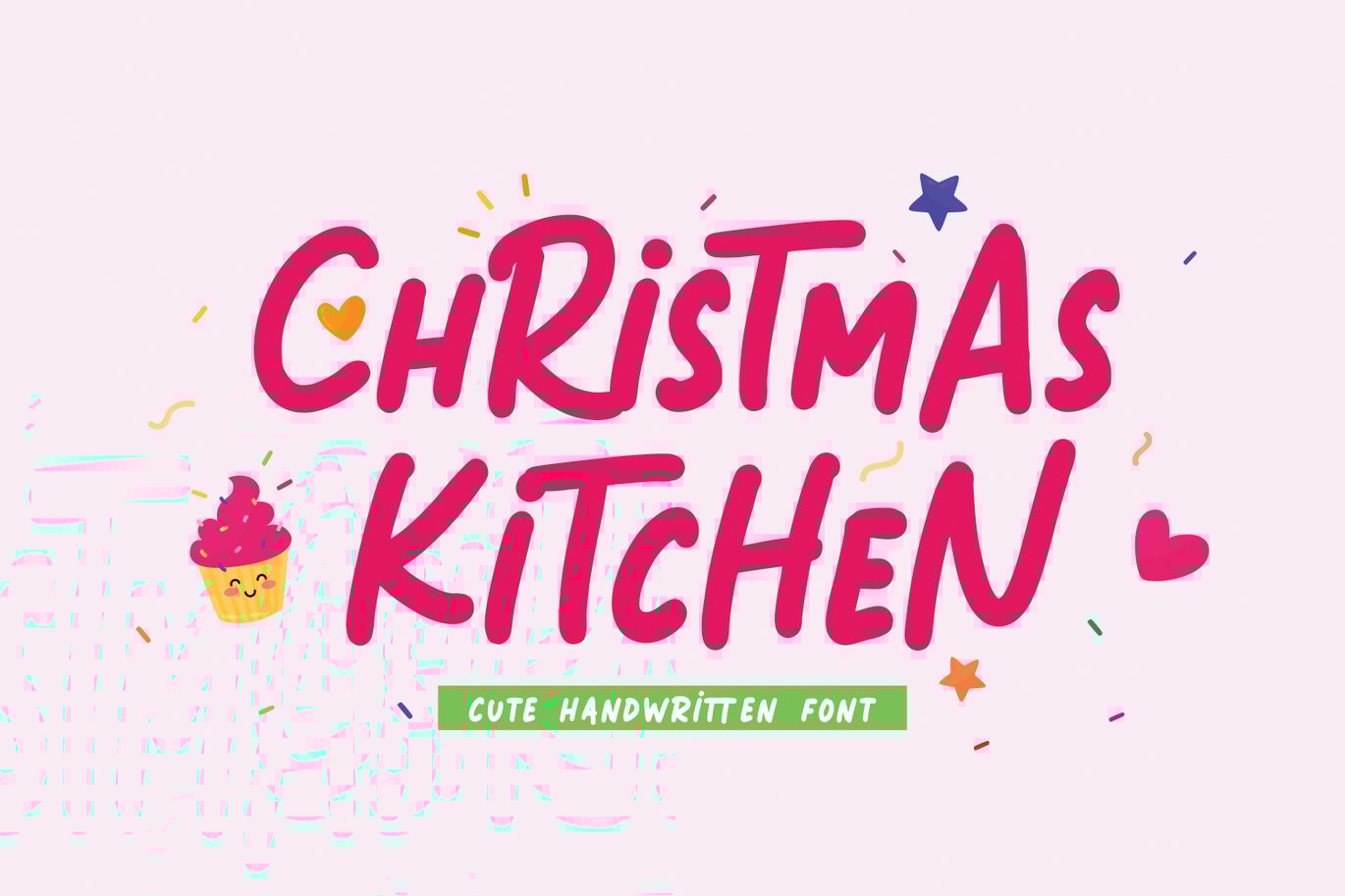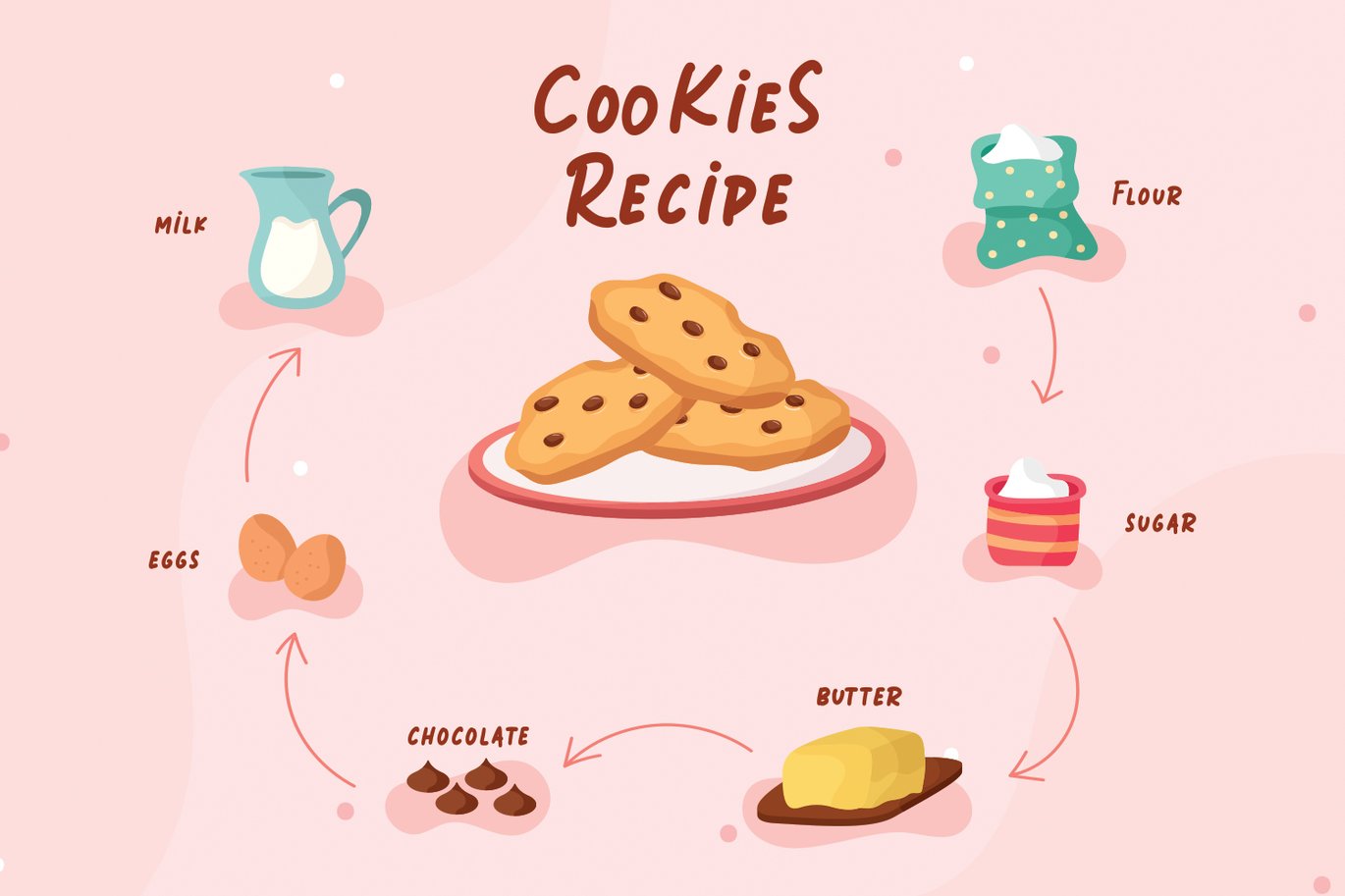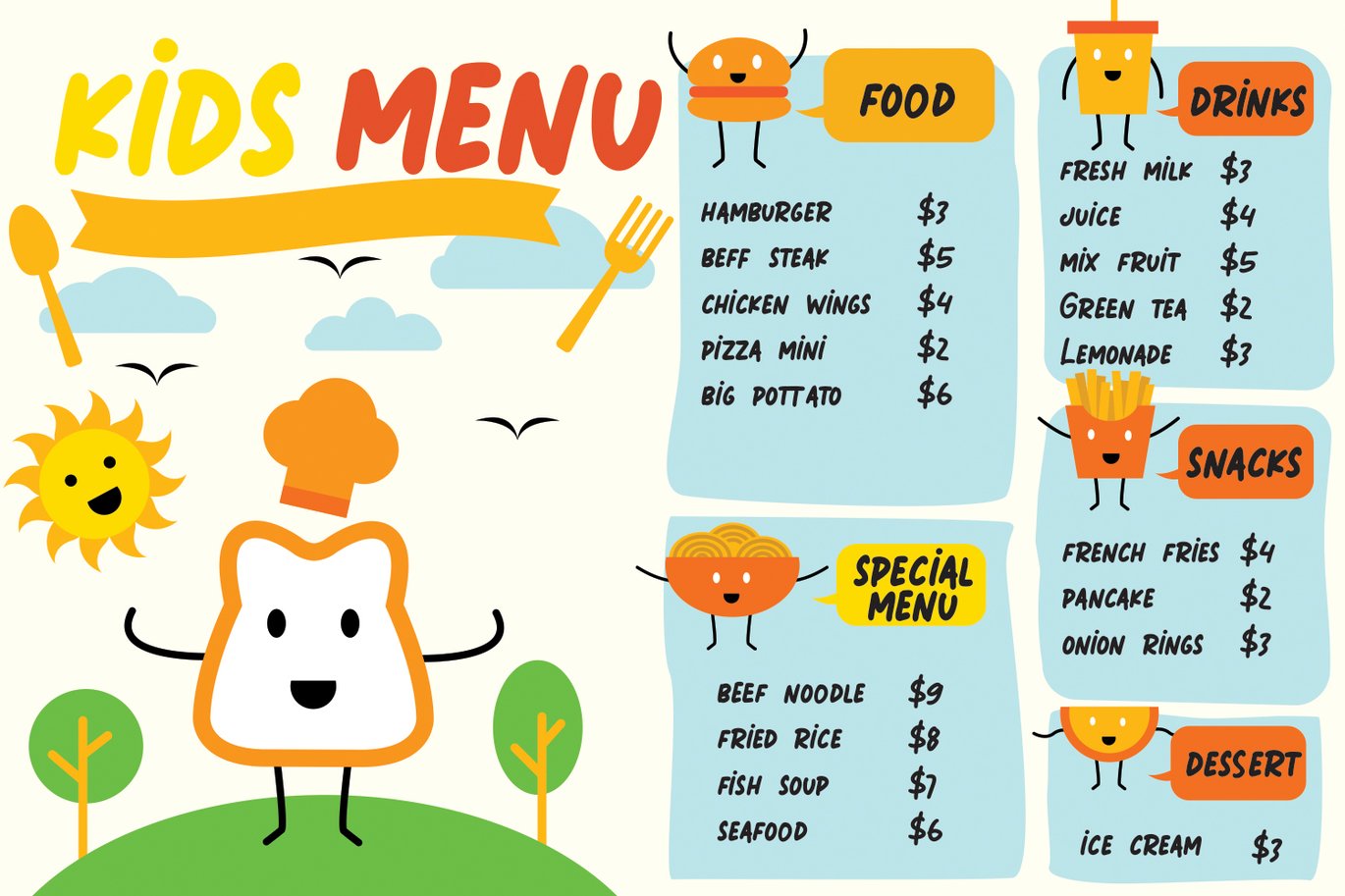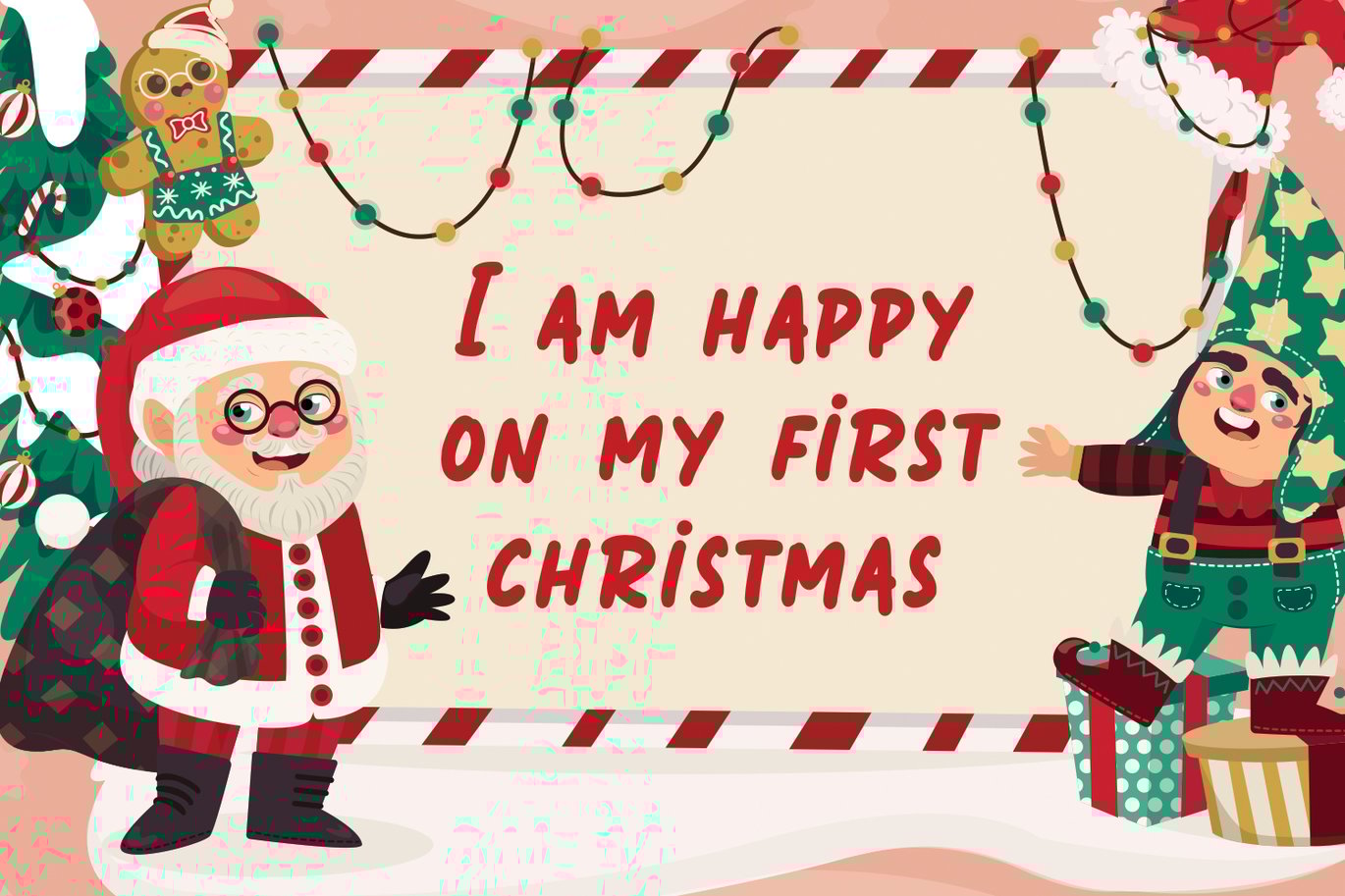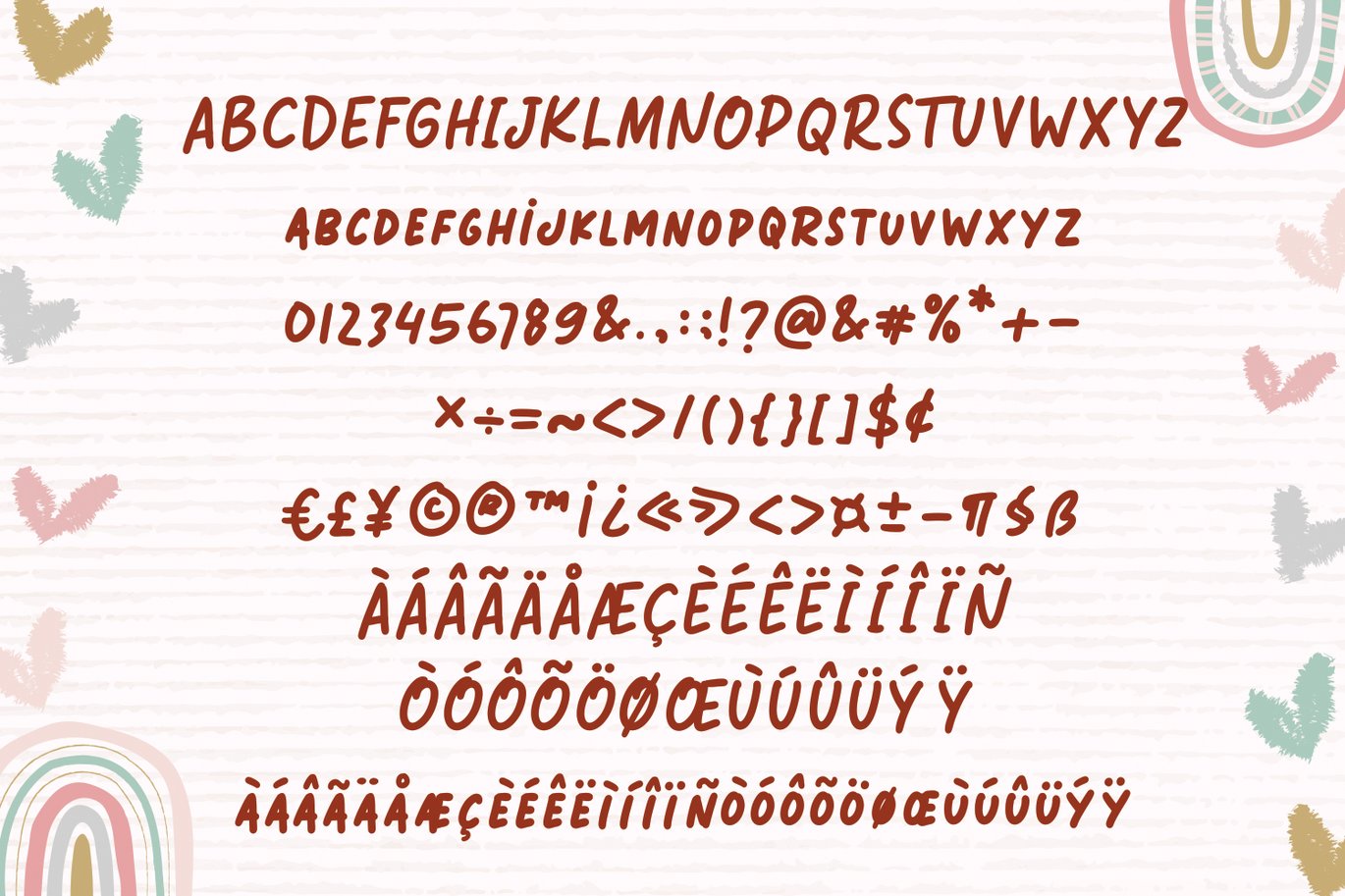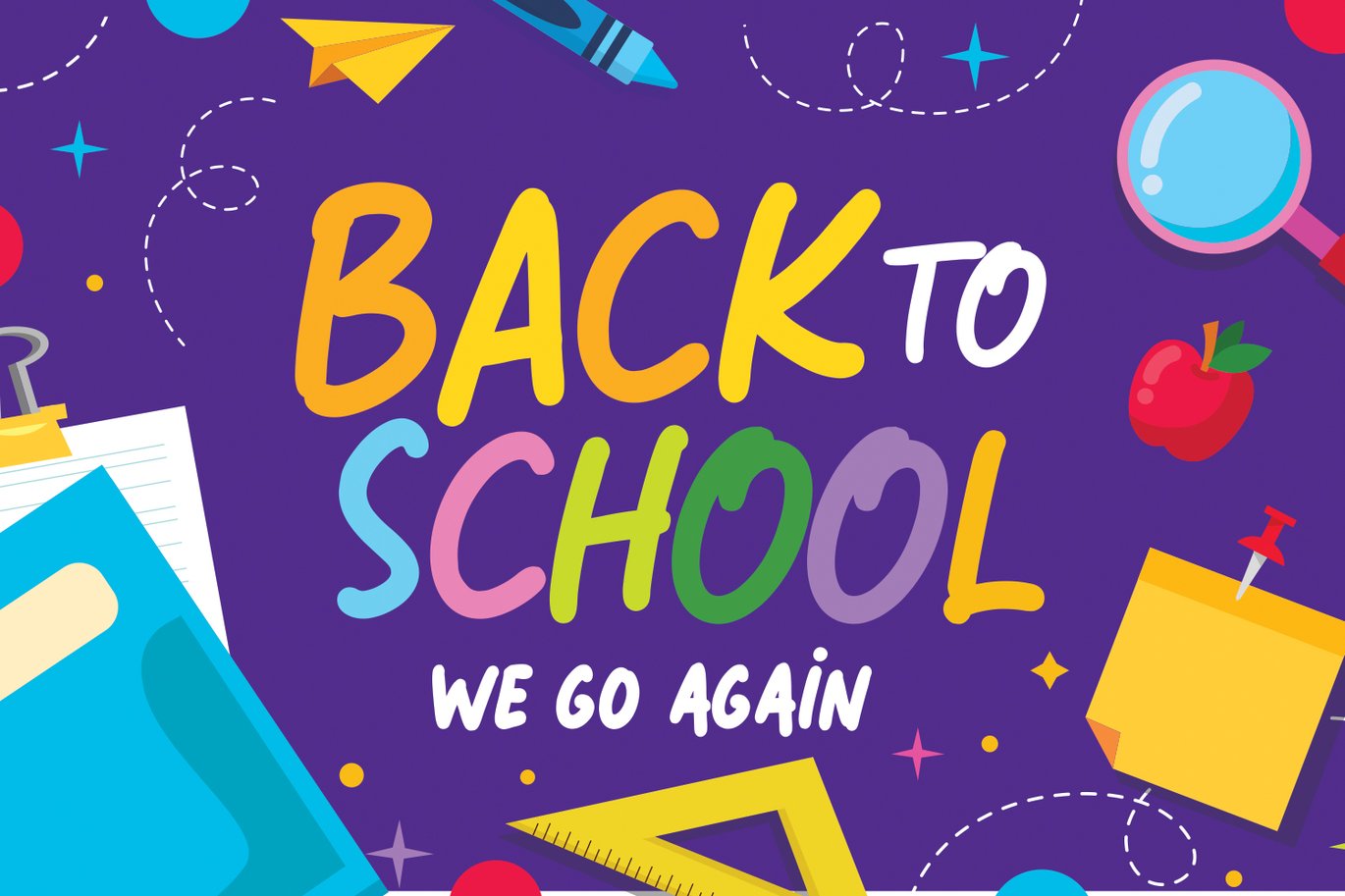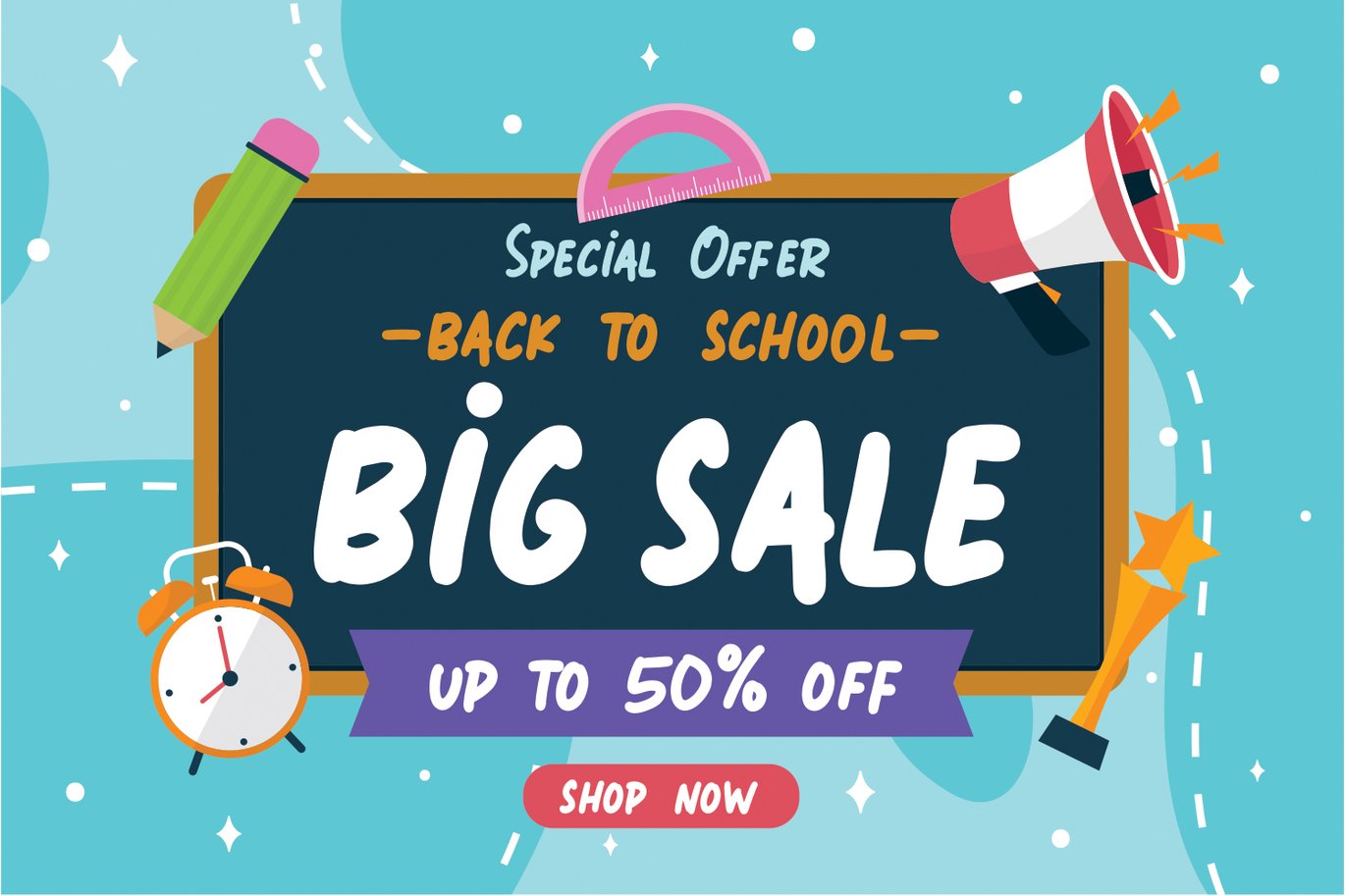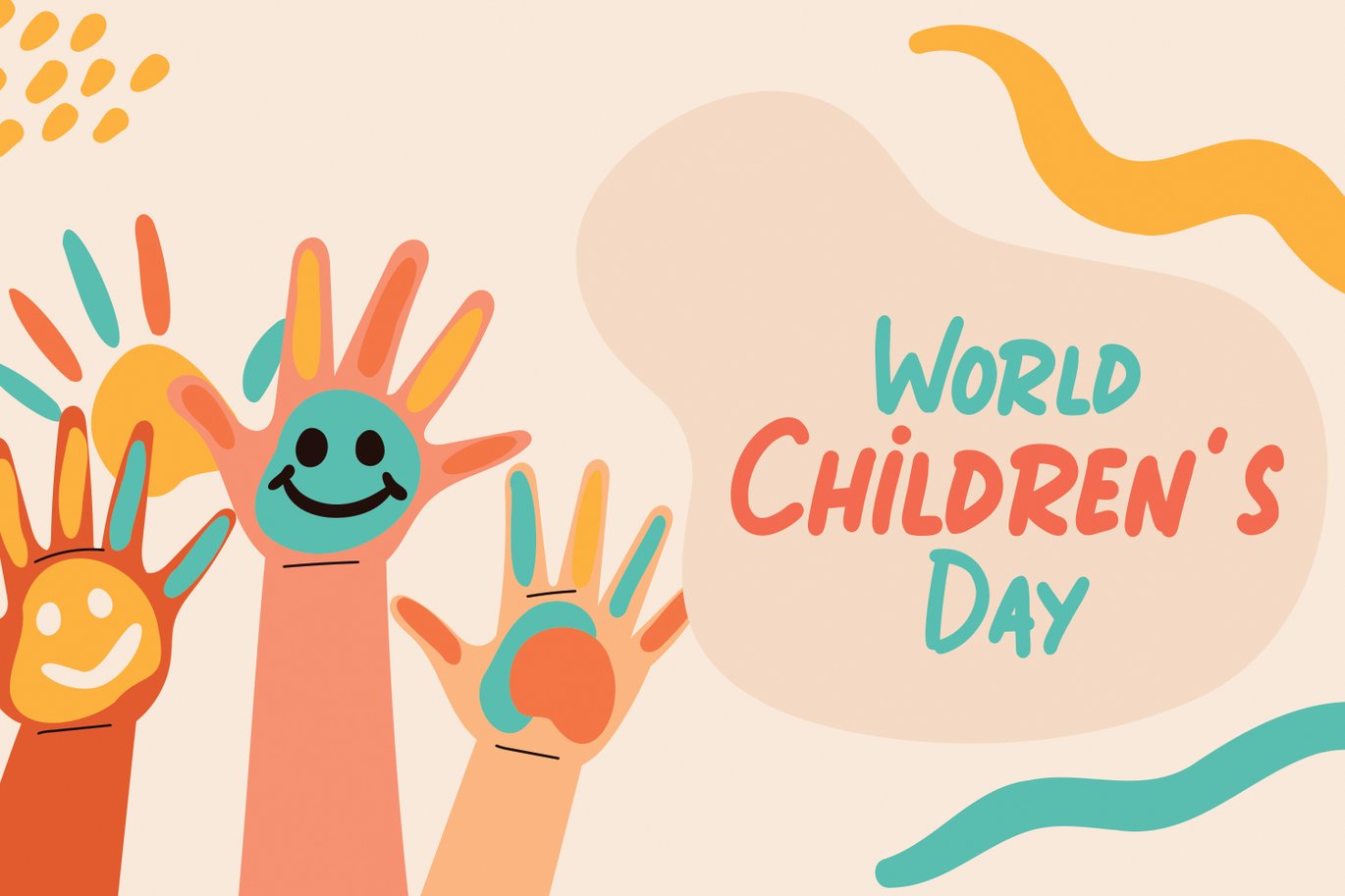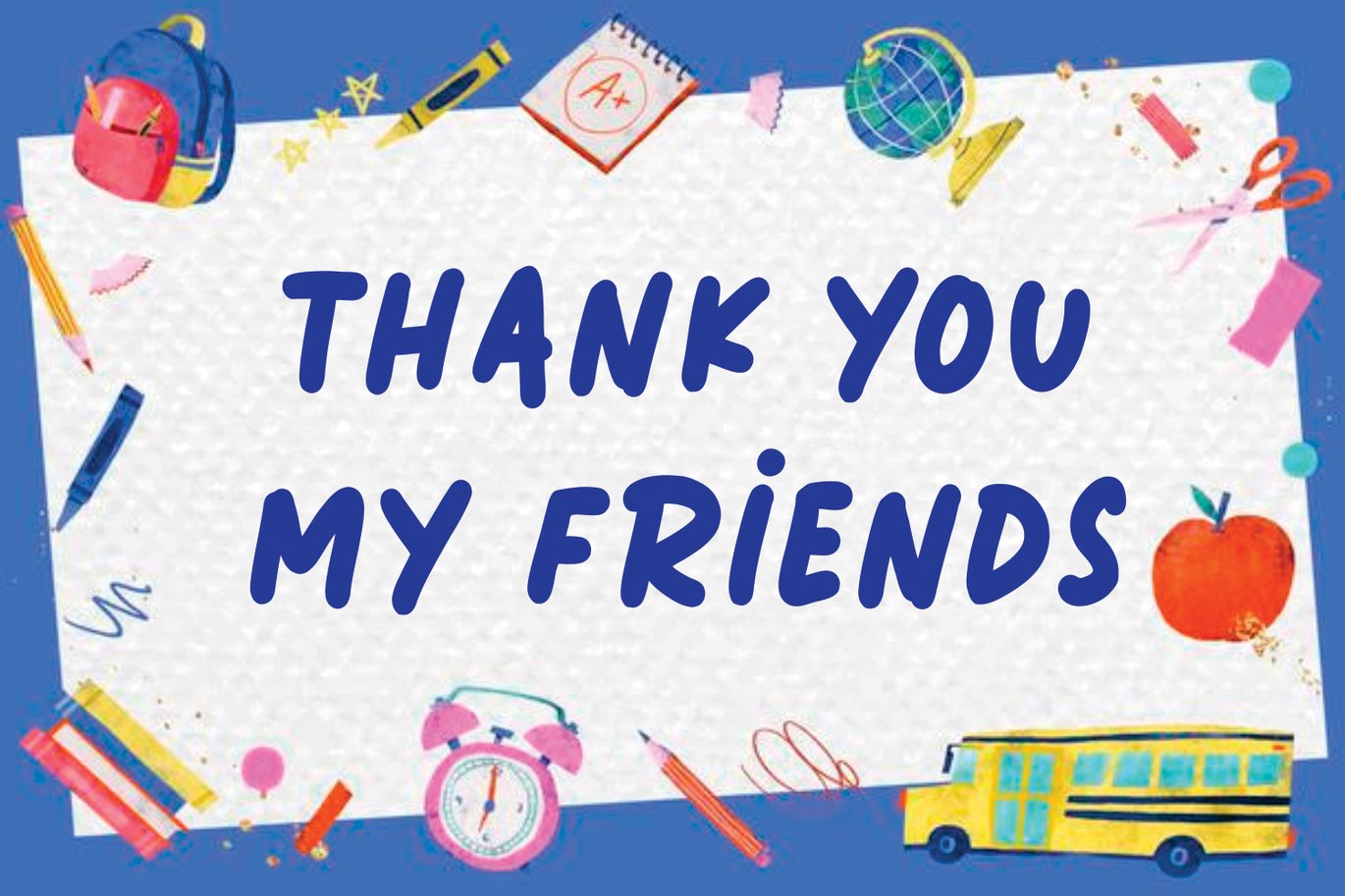
Christmas Kitchen – Christmas Font
Introducing Christmas Kitchen, a charming handwritten font designed to infuse your creative projects with a festive and cozy feel. Perfect for themes such as Christmas, Easter, Cricut projects, embroidery, Thanksgiving, and more, Christmas Kitchen adds a touch of warmth and personality to your designs. Its playful, flowing characters make it ideal for crafting heartfelt holiday cards, unique decorations, and personalized gifts that capture the spirit of the season.
Christmas Kitchen is also versatile enough for a range of professional applications, including fashion posters, magazine layouts, banners, advertising, and promotions. Its engaging style and handcrafted appeal enhance your marketing materials and create eye-catching visuals that stand out. Whether you’re promoting a holiday event or designing seasonal content, this font brings a touch of elegance and charm to every project.
With PUA Encoding, Christmas Kitchen ensures easy access to all alternate characters, allowing for a truly customized and unique look. Download this delightful font today and elevate your creative endeavors with a blend of festive charm and professional polish. Christmas Kitchen is the perfect addition to your font collection, ready to bring joy and style to all your seasonal and promotional designs!